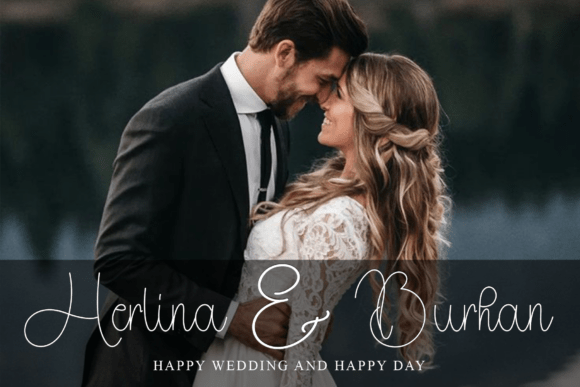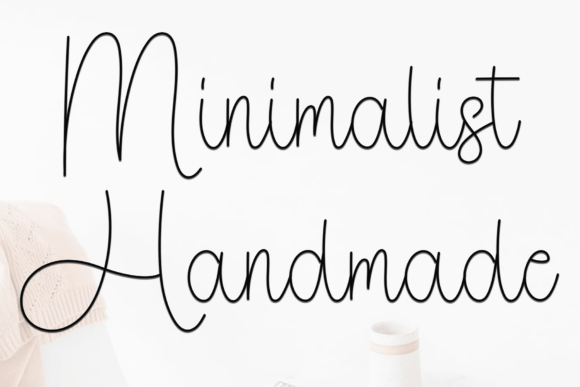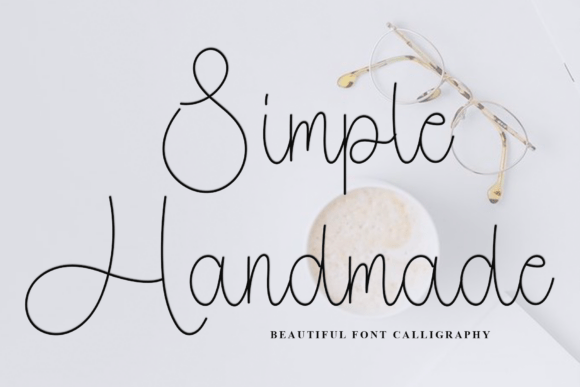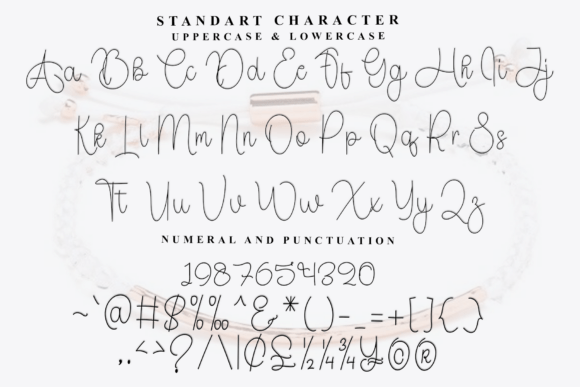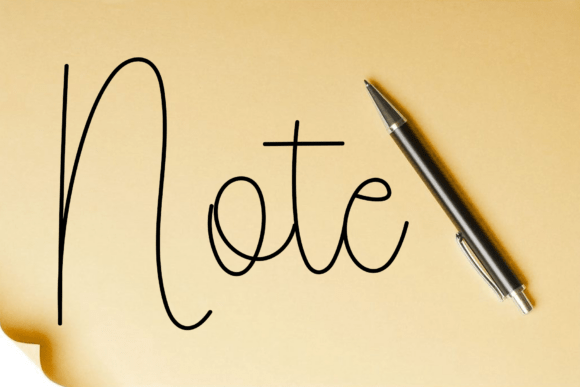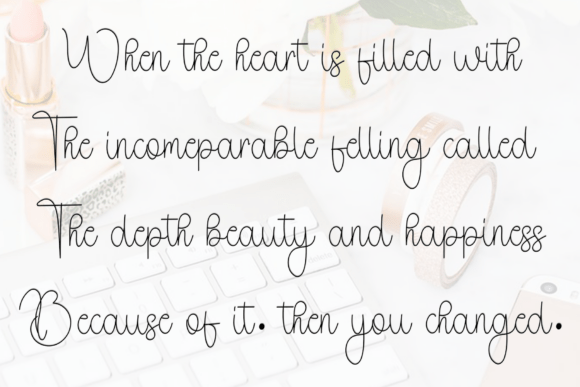
Introducing Almond Font: The Festive and Merry Typeface for Holiday Designs
Are you looking for a font that captures the essence of the holiday season? Do you want to add a touch of magic to your designs, greeting cards, and gift tags? Look no further than Almond Font, a decorative and whimsical typeface that’s perfect for bringing cheer and nostalgia to your words.
What Makes Almond Font Special?
Almond Font is a unique and festive typeface that’s specifically designed to evoke the spirit of the holiday season. Its decorative elements and whimsical flair make it an ideal choice for designers and crafters who want to add a touch of enchantment to their projects. Whether you’re creating greeting cards, gift tags, or holiday-themed designs, Almond Font is sure to bring a smile to your face and a touch of magic to your words.
Almond Font is perfect for a wide range of holiday-themed projects, including:
• Greeting cards: Create beautiful and festive greeting cards that will make your loved ones feel special.
• Gift tags: Add a personal touch to your gifts with custom gift tags that feature Almond Font.
• Holiday-themed designs: Use Almond Font to create stunning holiday-themed designs, such as posters, flyers, and social media graphics.
One of the best things about Almond Font is that it’s PUA (Private Use Area) encoded, which means you can access all of the amazing glyphs and ligatures with ease. This makes it easy to use the font in your designs, even if you’re not a typography expert.
Why Choose Almond Font?
So why choose Almond Font for your holiday designs? Here are just a few reasons:
• Unique and festive: Almond Font is a one-of-a-kind typeface that’s specifically designed for the holiday season.
• Whimsical and decorative: The font features decorative elements and whimsical flair that add a touch of magic to your designs.
• Easy to use: Almond Font is PUA encoded, making it easy to access all of the glyphs and ligatures.
• Perfect for designers and crafters: Whether you’re a professional designer or a crafter, Almond Font is perfect for anyone who wants to add a touch of holiday cheer to their projects.
Tips for Using Almond Font
Here are a few tips for using Almond Font in your designs:
• Use it sparingly: Almond Font is a decorative typeface, so it’s best to use it sparingly to add emphasis to your designs.
• Pair it with other fonts: Almond Font looks great when paired with other fonts, such as serif or sans-serif fonts.
• Experiment with colors: Almond Font looks great in a variety of colors, so don’t be afraid to experiment and find the perfect color for your design.
Almond Font is a festive and merry typeface that’s perfect for adding a touch of holiday cheer to your designs. With its decorative elements and whimsical flair, it’s sure to bring a smile to your face and a touch of magic to your words. So why wait? Download Almond Font today and start creating stunning holiday designs that will leave a lasting impression.
Whether you’re a designer, crafter, or just someone who loves the holiday season, Almond Font is the perfect choice for anyone who wants to add a touch of enchantment to their projects. So go ahead, let your typography shine with the magic of Almond Font!